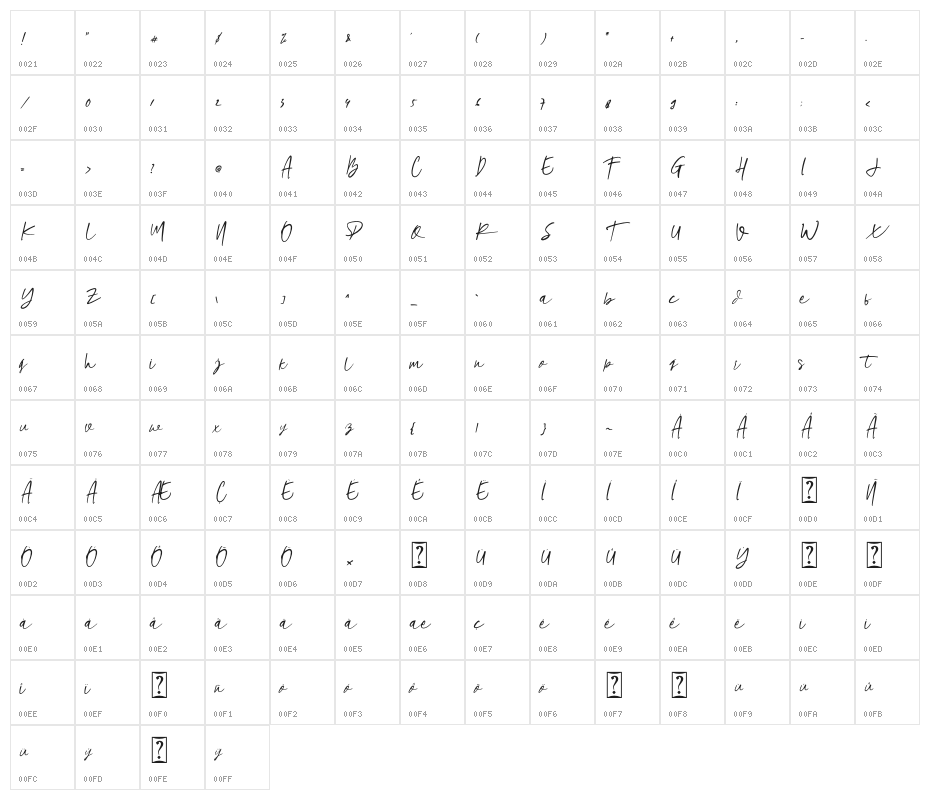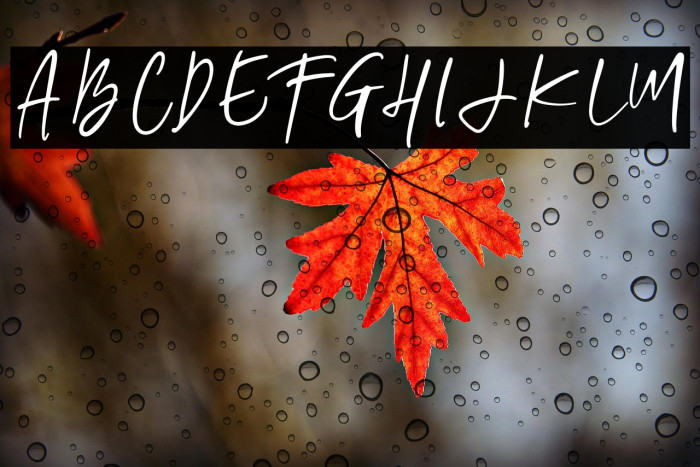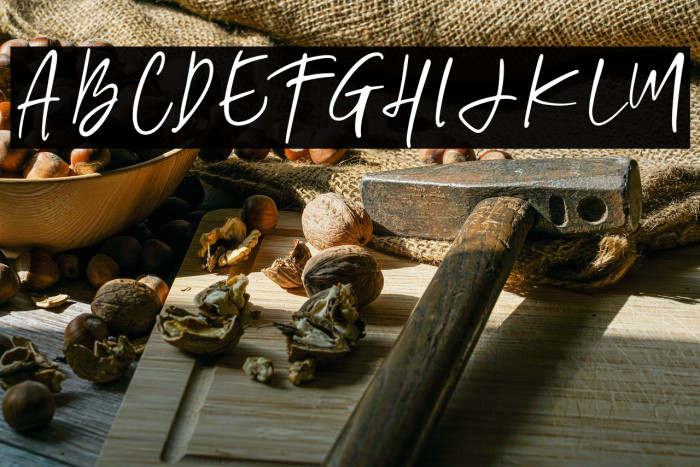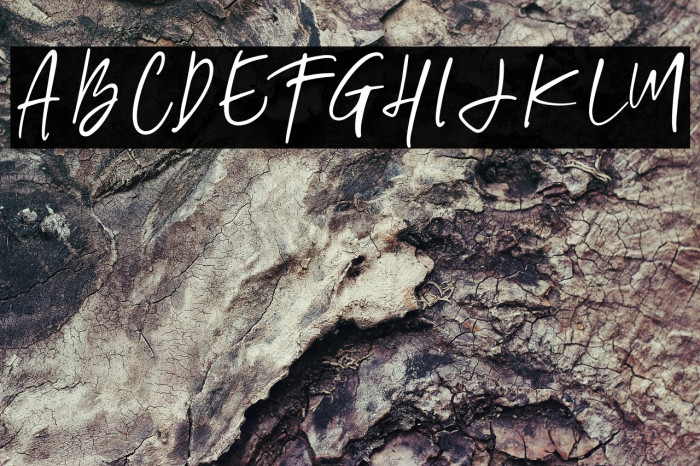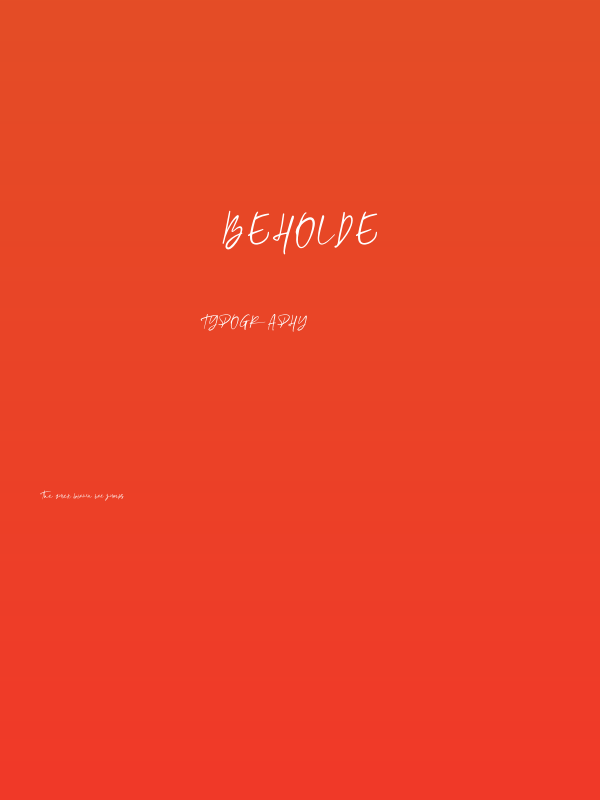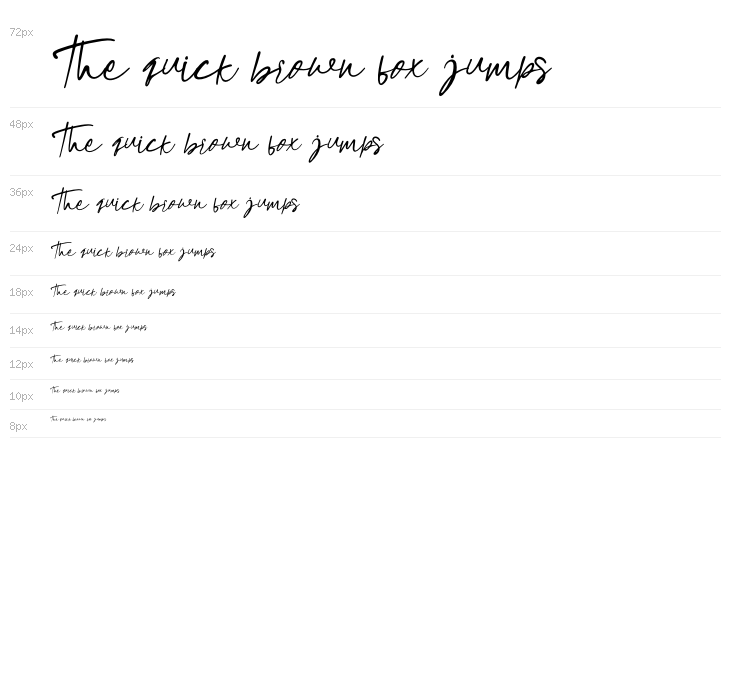
Beholde Font
Beholde Description
This font features a lively and expressive handwritten style, characterized by its fluid and dynamic letterforms. The uppercase letters exhibit a playful yet elegant appearance, with varying stroke widths that add a sense of movement and personality. The lowercase letters maintain the same energetic feel, with some letters connecting seamlessly, enhancing the script-like quality. Numbers and special characters are crafted with the same attention to detail, ensuring consistency throughout. The overall design is both modern and approachable, making it suitable for a variety of creative projects.